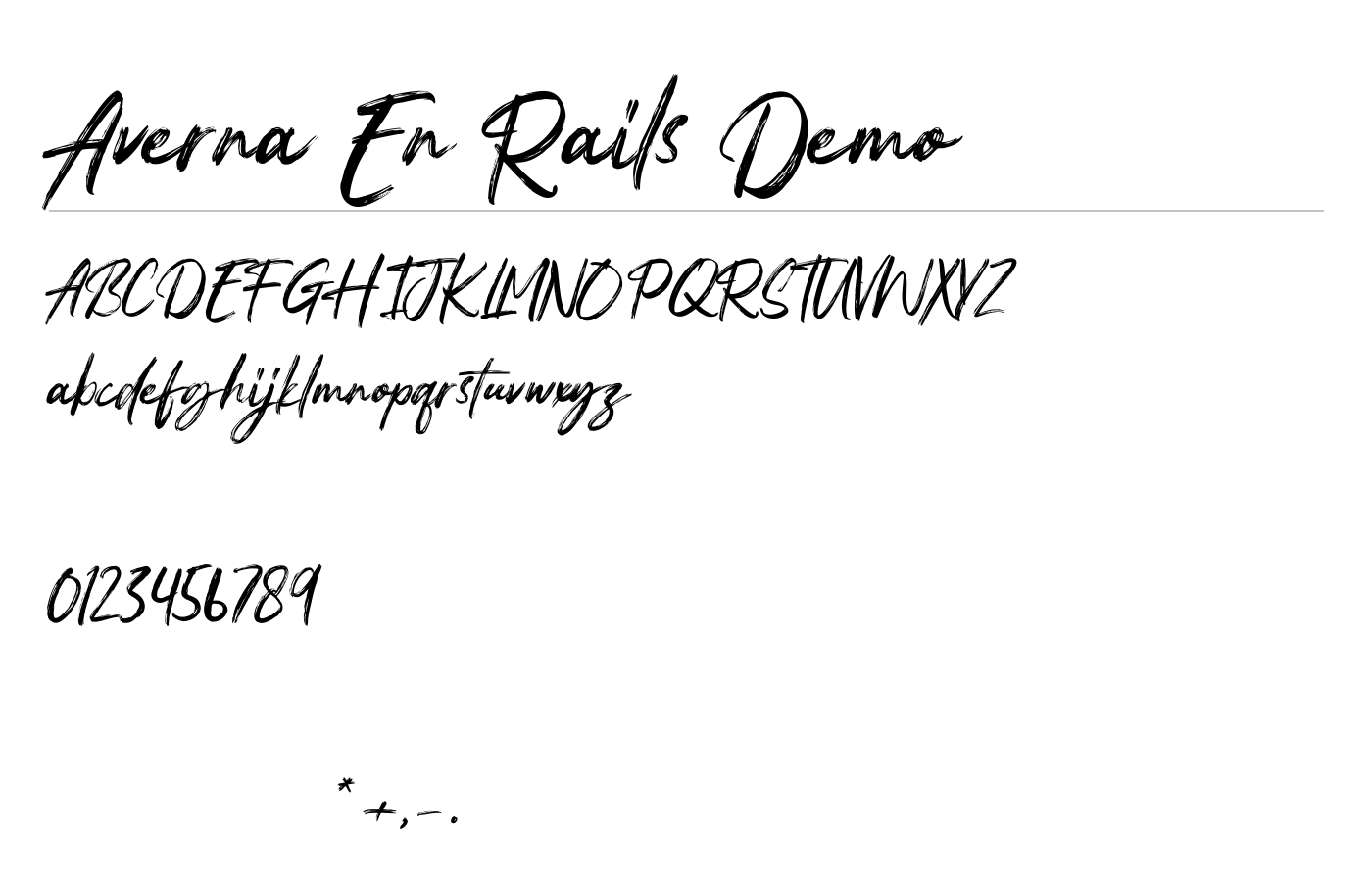
Averna En Rails Demo is a dynamic and expressive handwritten script font that captures the energy of brush strokes with its textured, slightly rough edges. Its tall, narrow letterforms with varied thickness create a lively and informal feel, making it perfect for creative projects, casual branding, and artistic headlines where a personal touch and bold personality are desired. This font works especially well for posters, social media graphics, and packaging that aim to stand out with a handcrafted, authentic vibe.
Averna En Rails Demo Font
About Averna En Rails Demo Font
| Font family | Averna En Rails Demo Font |
| Designer | Lettermine Studio |